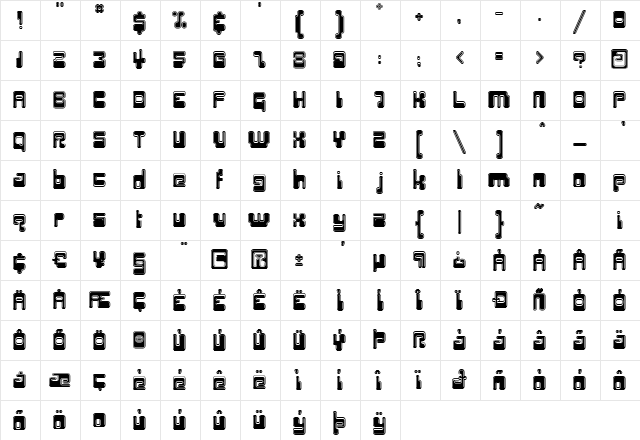
HiroOutline Regular
HiroOutline is built around its visual character rather than neutral utility - its distinctive forms are designed to make an impression at display sizes.
Font Pairing: Pair with a clean neutral sans-serif for body copy to let HiroOutline's character lead without overwhelming the composition.
Pro Tip: Use HiroOutline exclusively at display sizes - it was designed to be seen, not read at length. Let a neutral companion handle body copy.